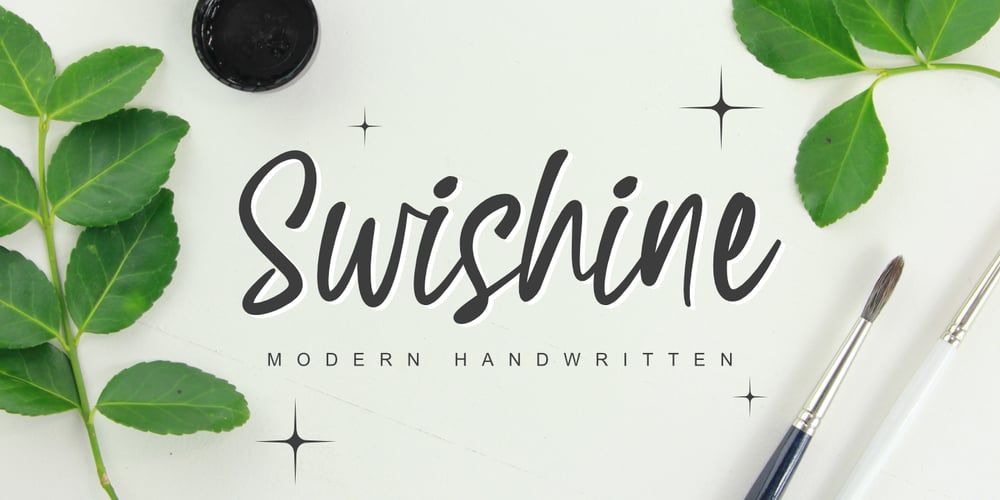
Swishine
Swishine font
Swishine Font Family was designed by Toni Dzulham and published by Dumadi. Swishine contains 1 styles and family package options. Swishine is a modern, freestyle aesthetic handwritten font perfect for beauty branding, cosmetics, wedding invitations and other design branding.Swishine includes a full set of beautiful upper and lowercase letters, numbers, multiple punctuation marks, alternative styles, ending swsh, and ligatures. provides a very beautiful handwritten style.